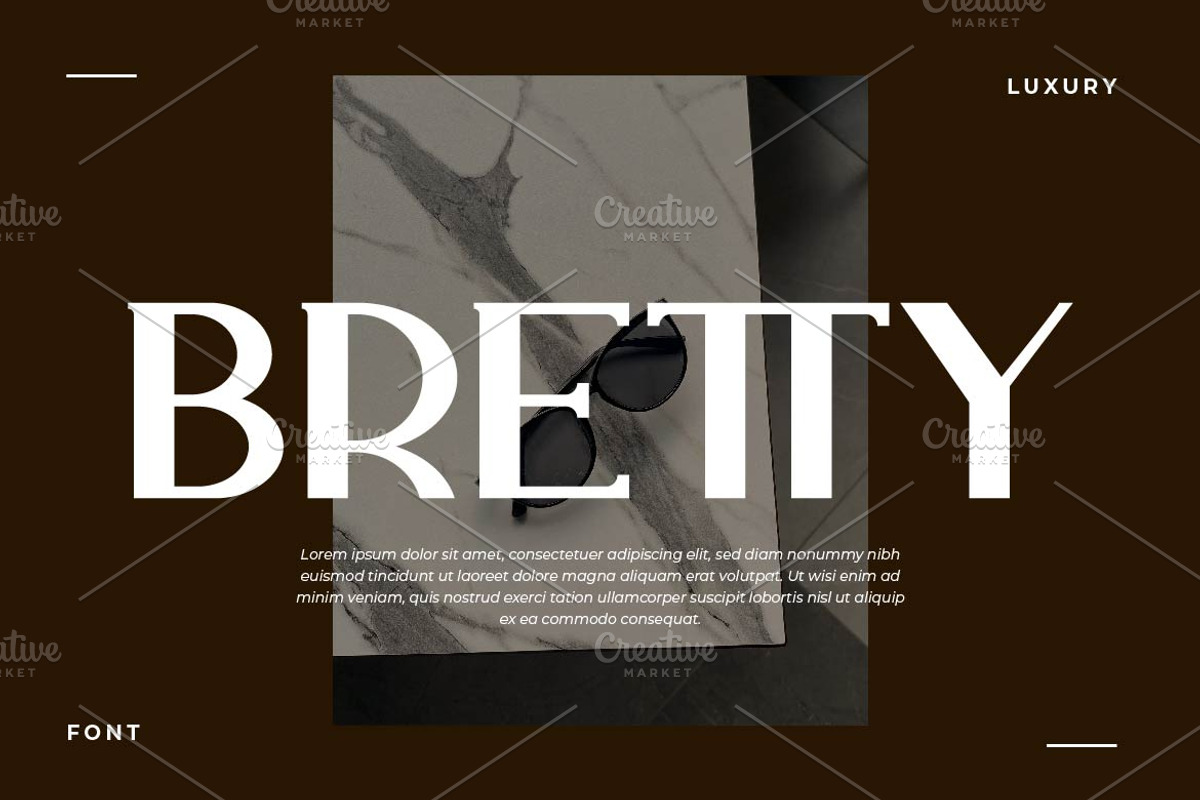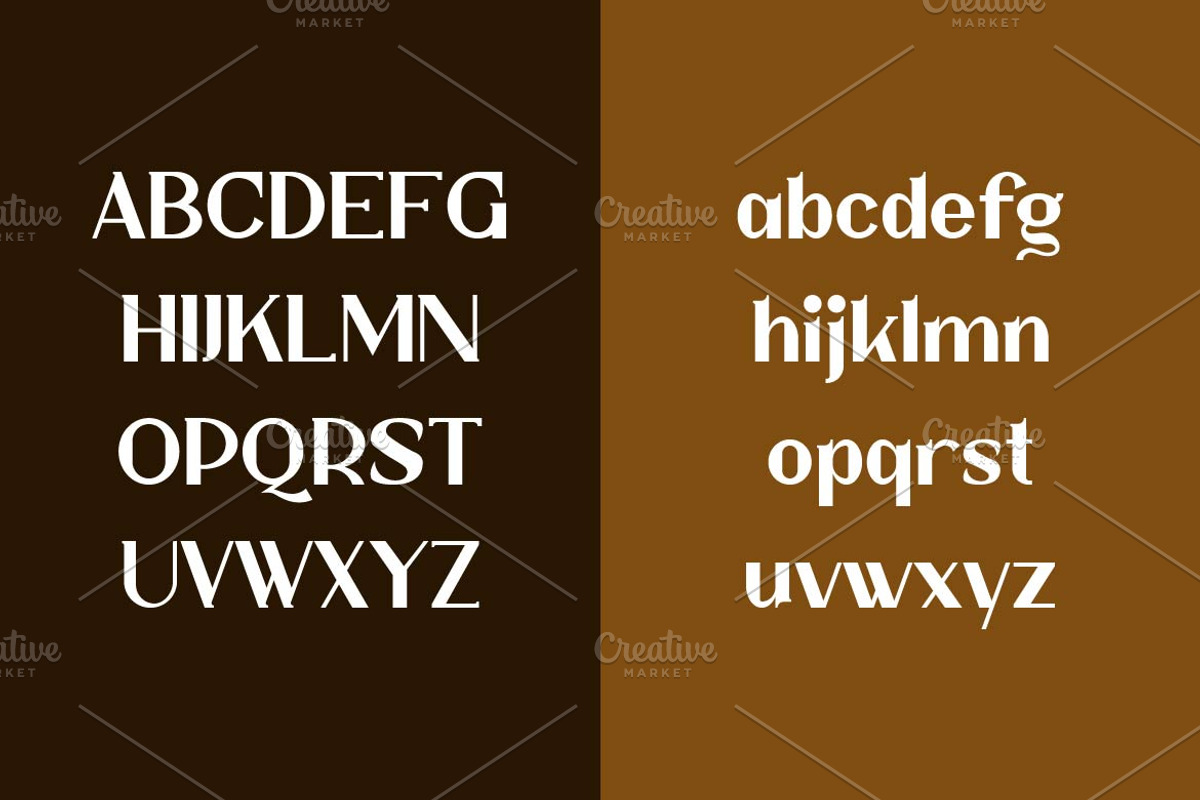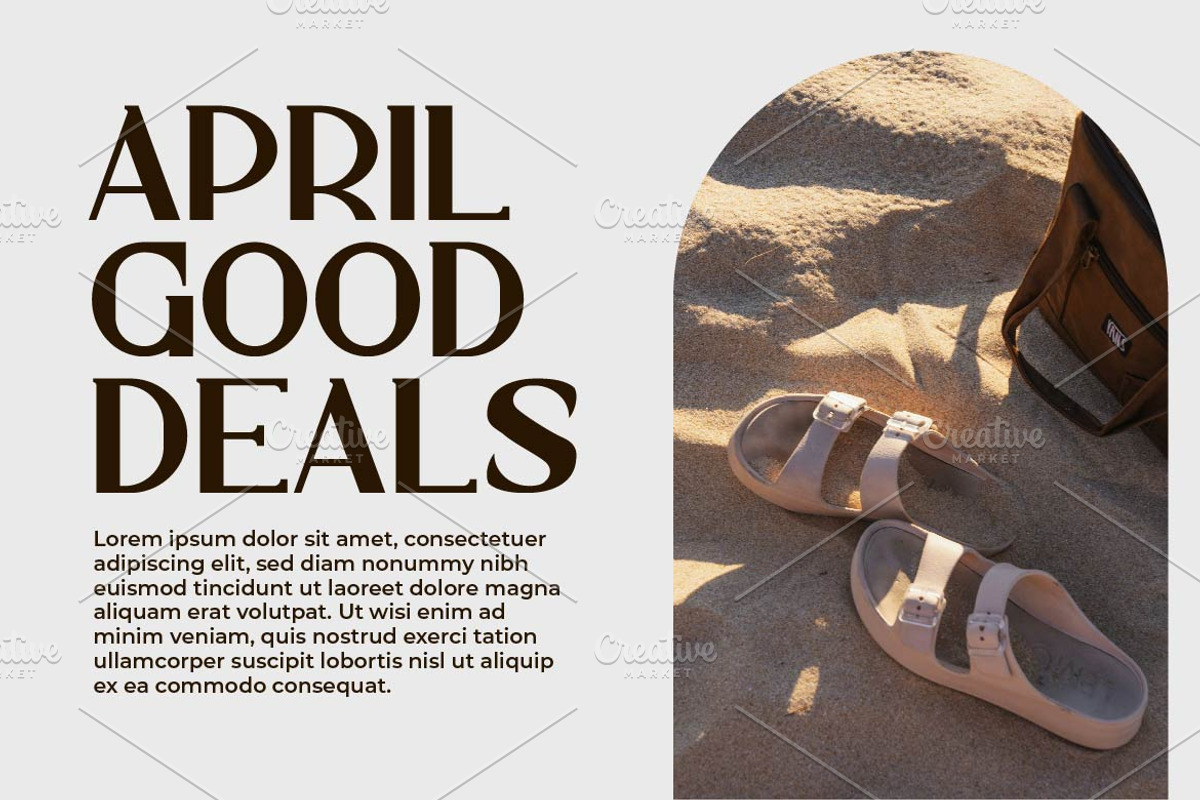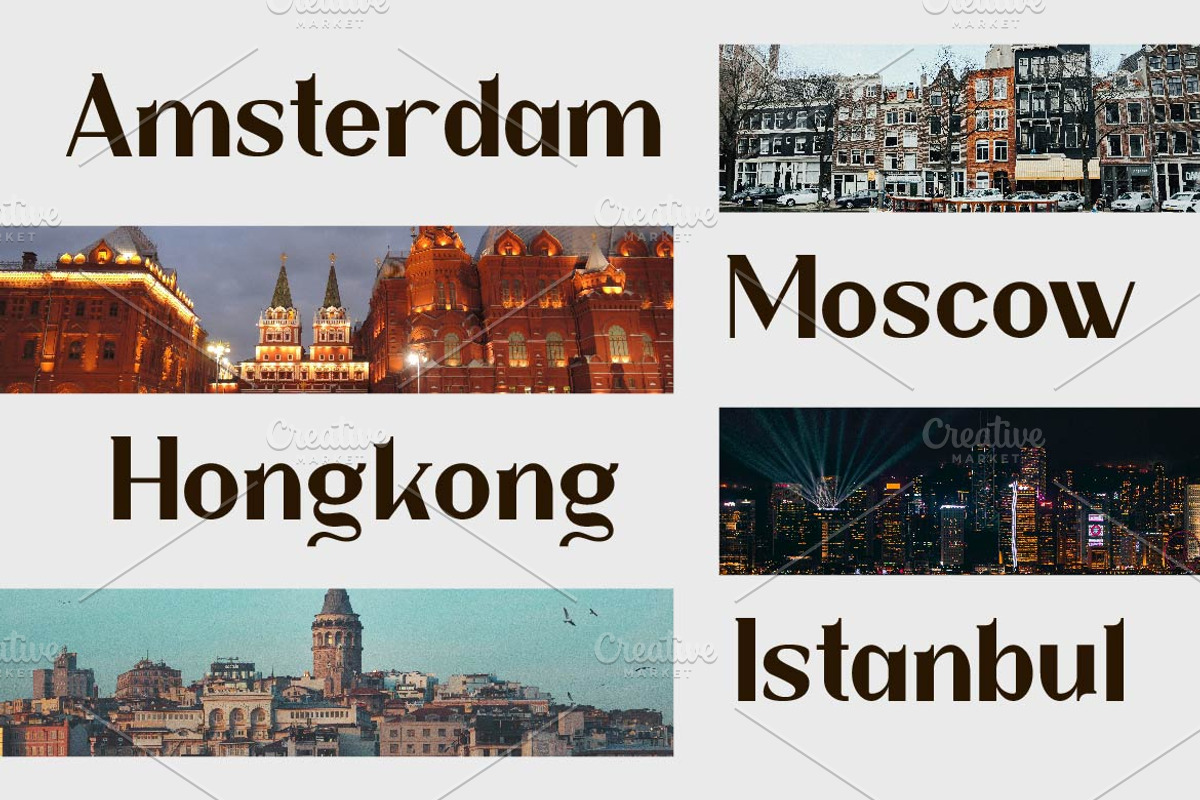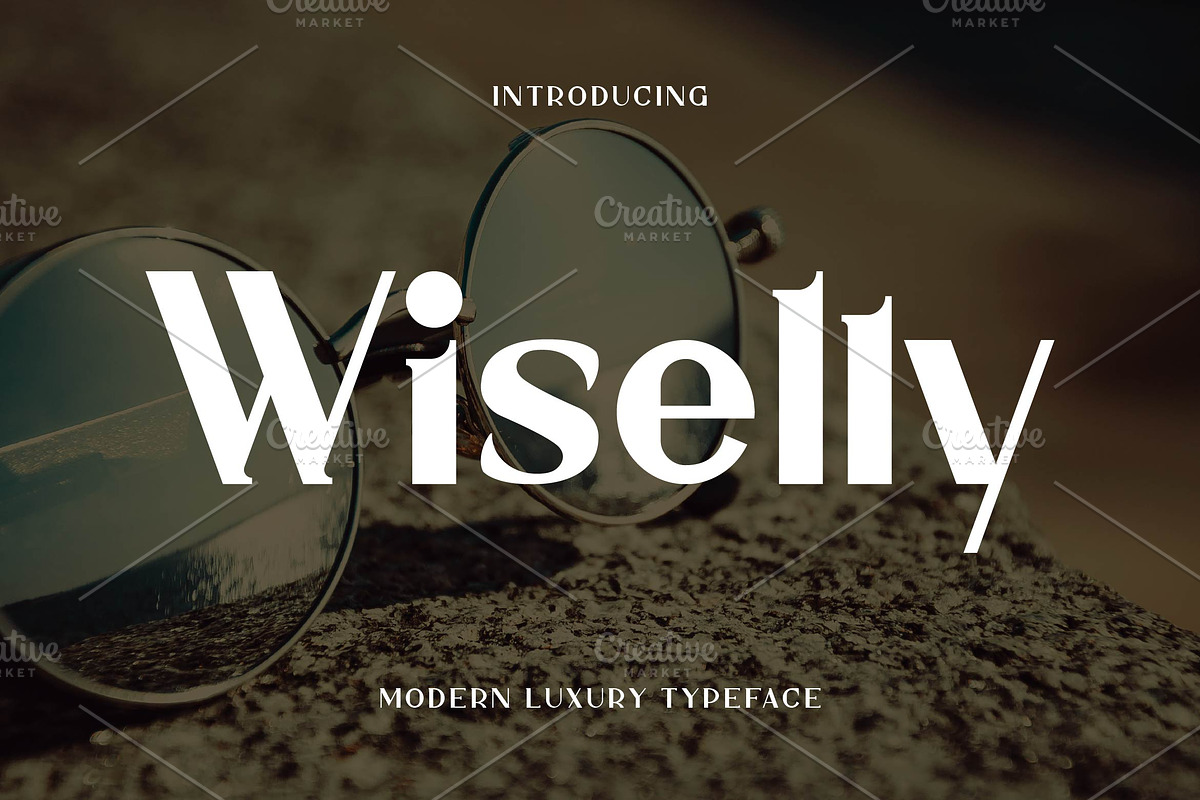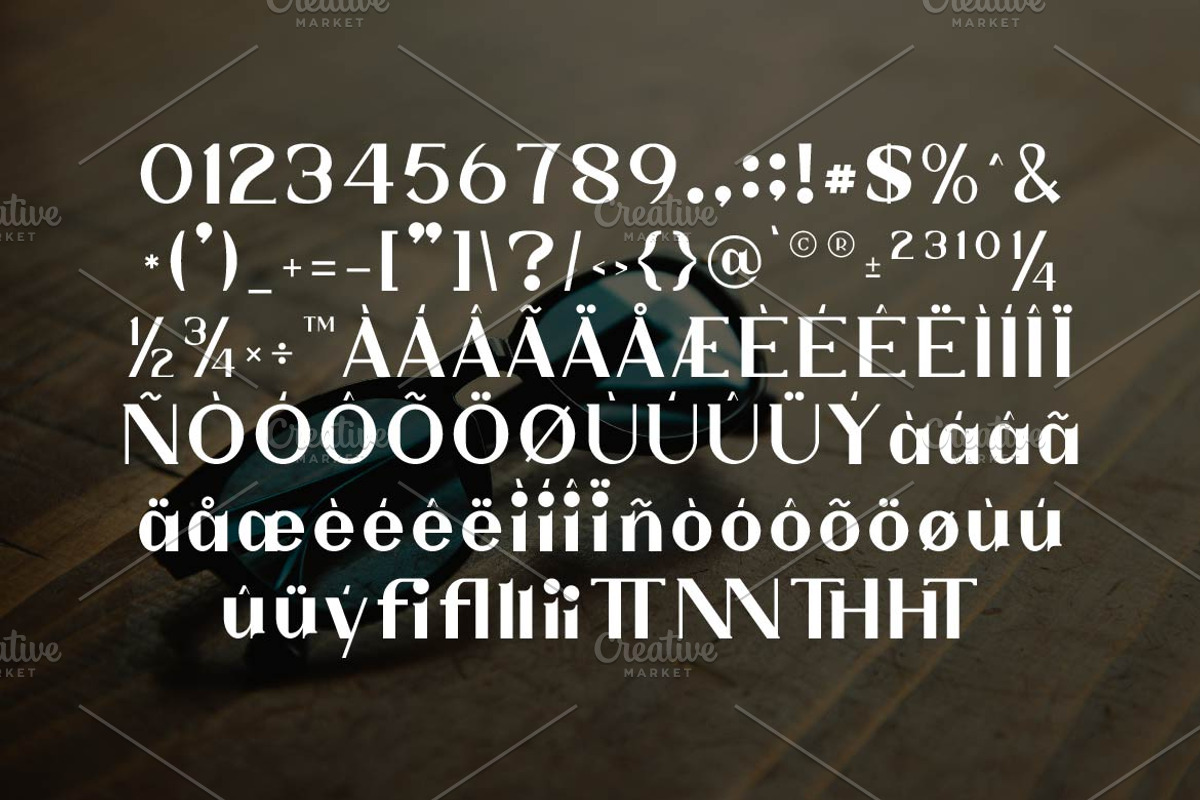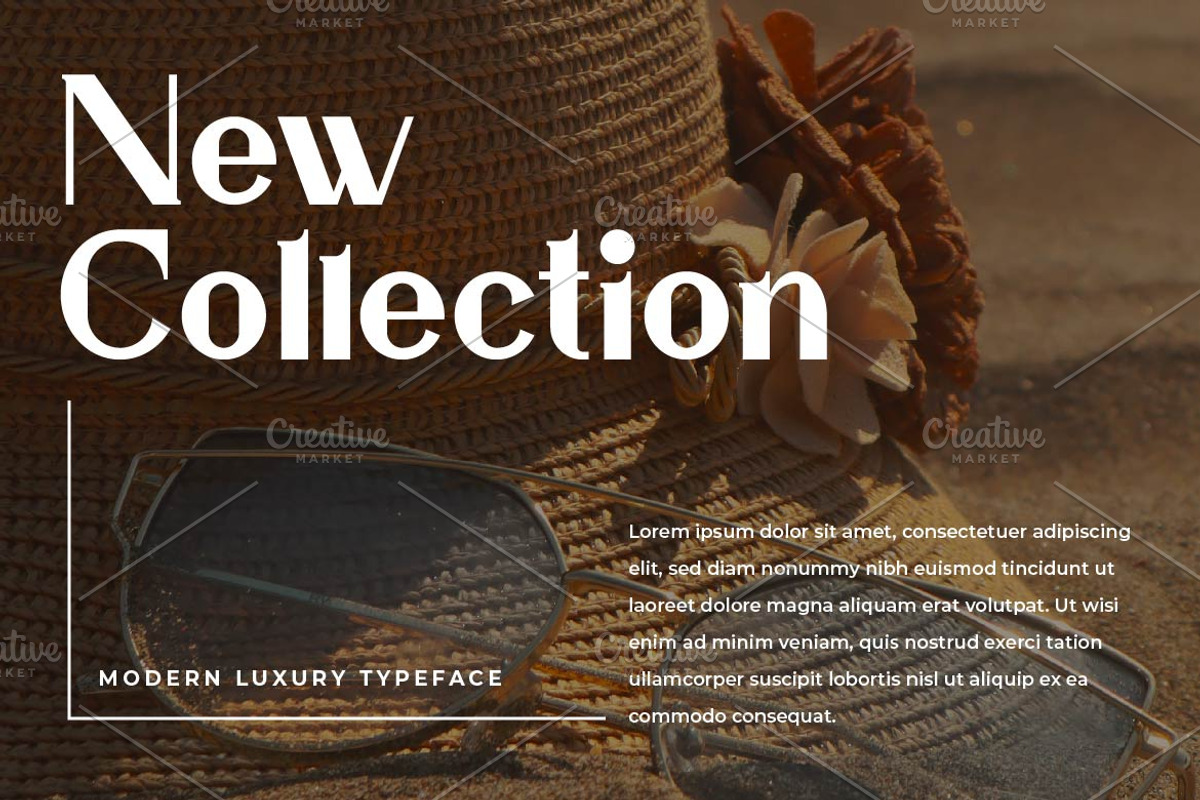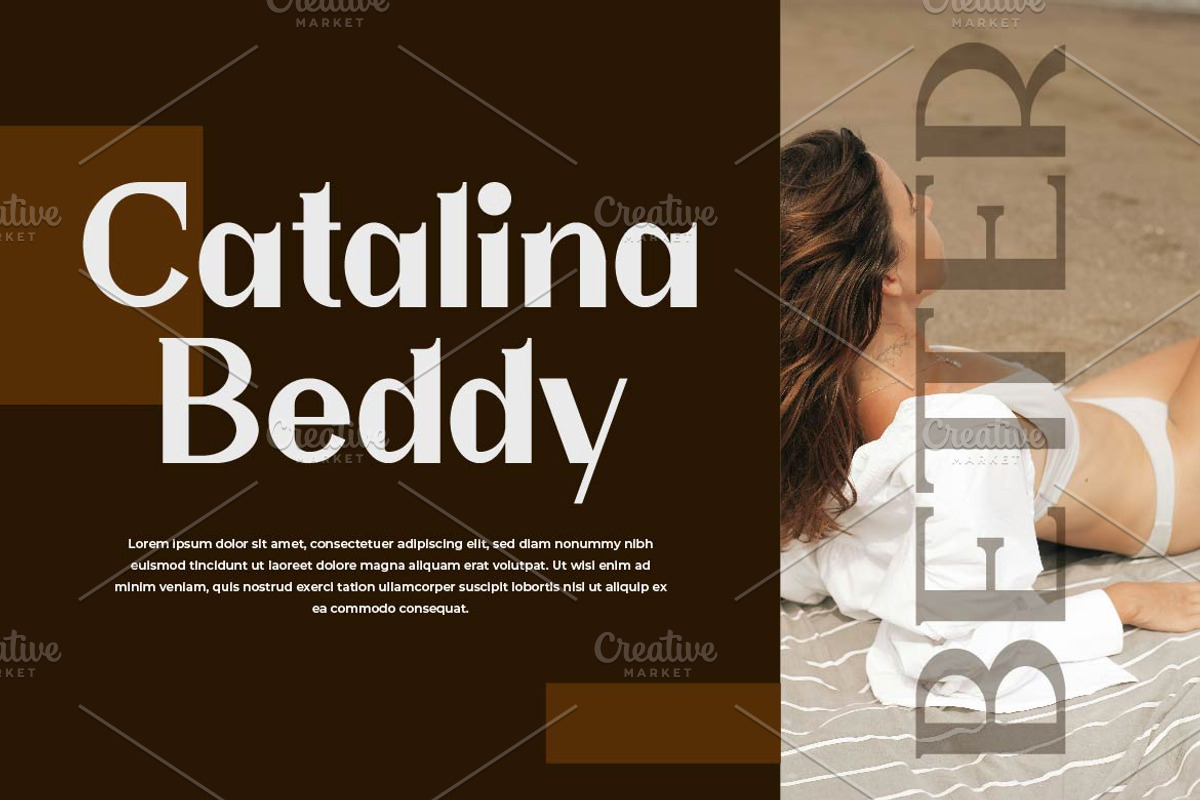
Wiselly Modern Luxury Serif
Wiselly is a modern luxury serif font designed with elegance and sophistication. Its refined letterforms, graceful curves, and high-end aesthetic make it perfect for luxury branding, editorial design, wedding invitations, and premium packaging. With multilingual support, ligatures, and alternates, Wiselly exudes class and exclusivity, making it the ideal choice for projects that demand a timeless and prestigious touch.